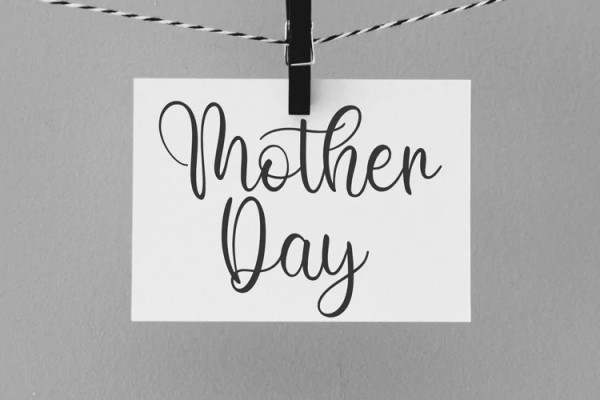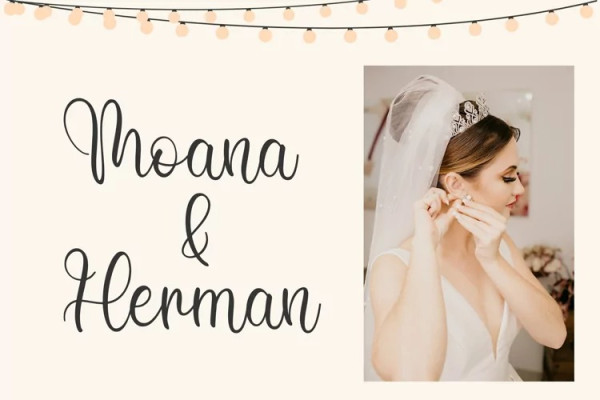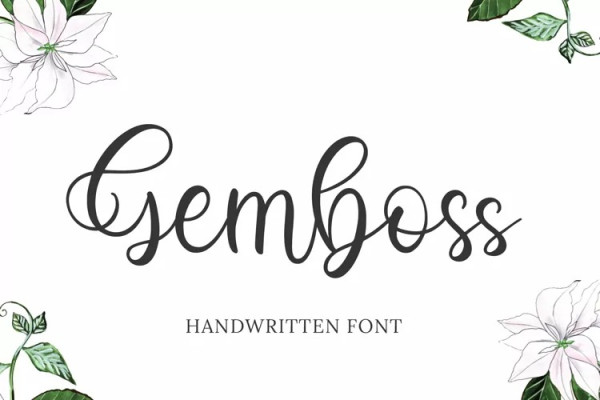
Gemboss Font
Gemboss Font is an exquisite handwritten font, masterfully designed to become a true favorite. It maintains its classy calligraphic influences while feeling contemporary and fresh. Please download and enjoy, thank you, and don’t forget to check out our other products.